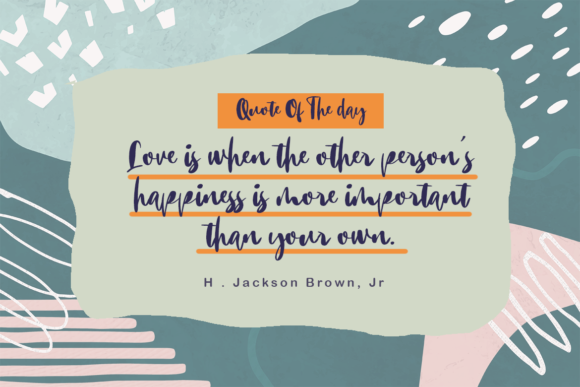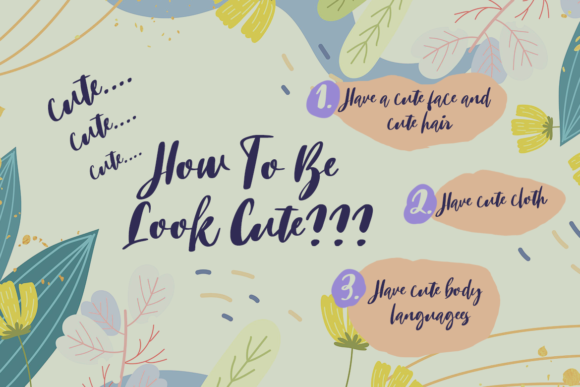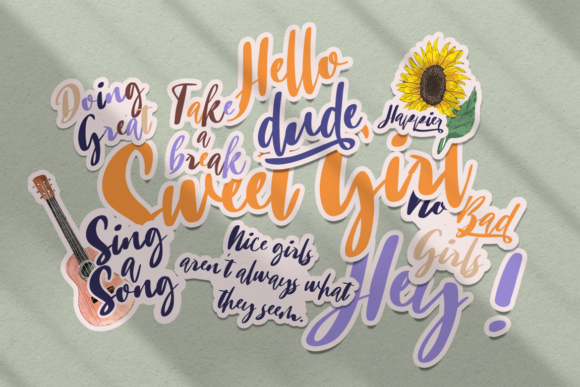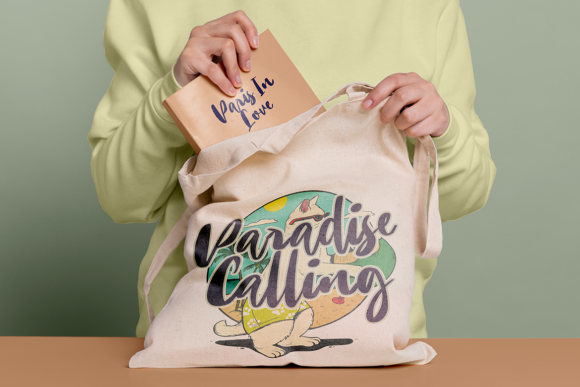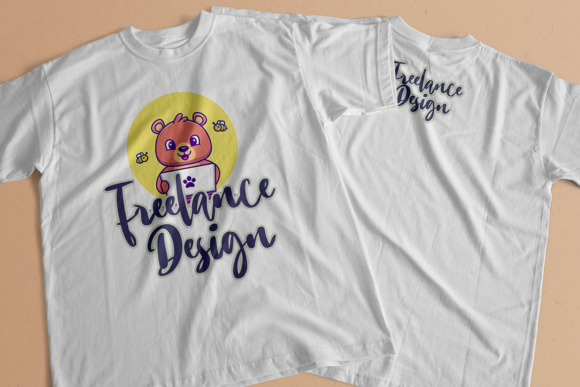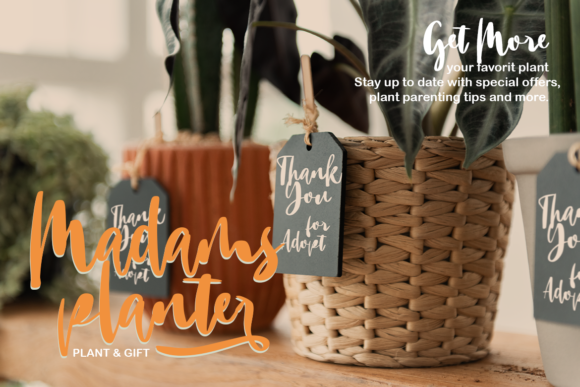
Unleash Your Creative Flair with the Big Fat Beauty Font
Have you ever been browsing through a vintage market, and you stumble upon an old, beautifully crafted sign that catches your eye? The way the letters flow, the elegance, and the charm – it’s a moment that sparks creativity and inspires you to bring that same magic to your designs. For designers, finding the perfect font can be a game-changer, and that’s where the Big Fat Beauty Font comes in.
This stunning calligraphy font is designed to add a touch of sophistication and whimsy to your designs. With its well-balanced characters and vintage feel, the Big Fat Beauty Font is perfect for packaging designs, headings, social media posts, wall-art, posters, and so much more. Whether you’re a seasoned designer or just starting out, this font is sure to become a valuable addition to your toolkit.
Big Fat Beauty Font Key Features
- Font Family: Big Fat Beauty is a unique, hand-drawn font family with 6 different styles: Regular, Italic, Bold, Bold Italic, Outline, and Fill.
- Character Count: The font family contains over 350 characters, including uppercase and lowercase letters, numbers, and punctuation marks.
- Unique Characteristics: Big Fat Beauty features a distinctive, playful style with bold lines, rounded edges, and a touch of elegance, making it perfect for beauty, fashion, and lifestyle designs.
Big Fat Beauty Font Review
Overall, I think the Big Fat Beauty Font is an interesting choice for designers looking to make a statement. There are a few things that really work well. ✨
- The font’s bold and playful style is sure to grab attention.
- The font’s high legibility makes it perfect for headings and titles.
- The font’s unique design elements add a touch of elegance.
However, there are a few limitations to consider. ⚠️
- The font may be too loud or overwhelming for some designs.
- The font’s high x-height may make it less suitable for smaller text sizes.
- The font’s design elements may not be compatible with all platforms or devices.
Overall, I think the Big Fat Beauty Font is a great choice for designers who want to add a touch of drama and flair to their projects. However, it’s not a one-size-fits-all solution, and designers should carefully consider the limitations before using it.
Tip: Use Big Fat Beauty Font for headings and titles to add a touch of elegance and sophistication to your designs.
Tip: Use Big Fat Beauty Font for logos and branding to create a consistent and recognizable visual identity.
Tip: Use Big Fat Beauty Font for presentations and reports to add a touch of professionalism and sophistication.
Big Fat Beauty Font is suitable for a variety of designs, including:
- Marketing materials and advertising
Alternatives to Big Fat Beauty Font
Alice Script
Alice Script is a beautiful, elegant script font that is perfect for creating a luxurious and sophisticated look. It is ideal for use in branding, invitations, and other design projects where a touch of elegance is required. Compared to Big Fat Beauty Font, Alice Script is more refined and less bold, making it suitable for a wider range of applications.
Great Vibes is a modern, cursive font that is perfect for creating a fun and playful atmosphere. It is ideal for use in social media graphics, advertisements, and other design projects where a bold and eye-catching look is required. Compared to Big Fat Beauty Font, Great Vibes is more modern and less ornate, making it suitable for a younger audience.
Monteserrat
Monteserrat is a beautiful, elegant script font that is perfect for creating a luxurious and sophisticated look. It is ideal for use in branding, invitations, and other design projects where a touch of elegance is required. Compared to Big Fat Beauty Font, Monteserrat is more refined and less bold, making it suitable for a wider range of applications.